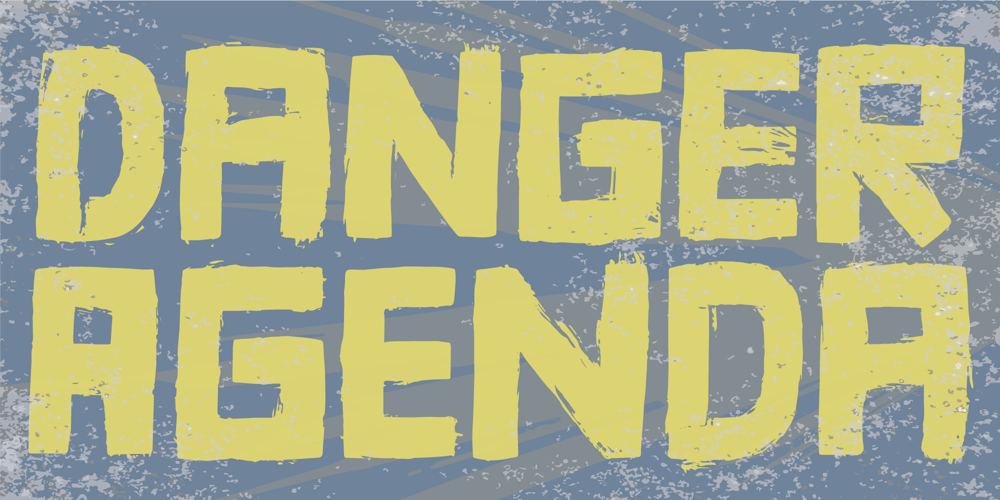
Danger Agenda Font Family was designed by Jakob Fischer and published by PizzaDude.dk. Danger Agenda contains 2 styles and family package options. “Punk is not dead, grunge is not dread, skateboarding and grafitti is forever” – shouted by some (possibly drunk!) person one late night. I had these “wise” words in the back of my mind, while making this font. I wanted to capture the wildness of both punk/grunge/skateboarding and grafitti without overdoing any of them!